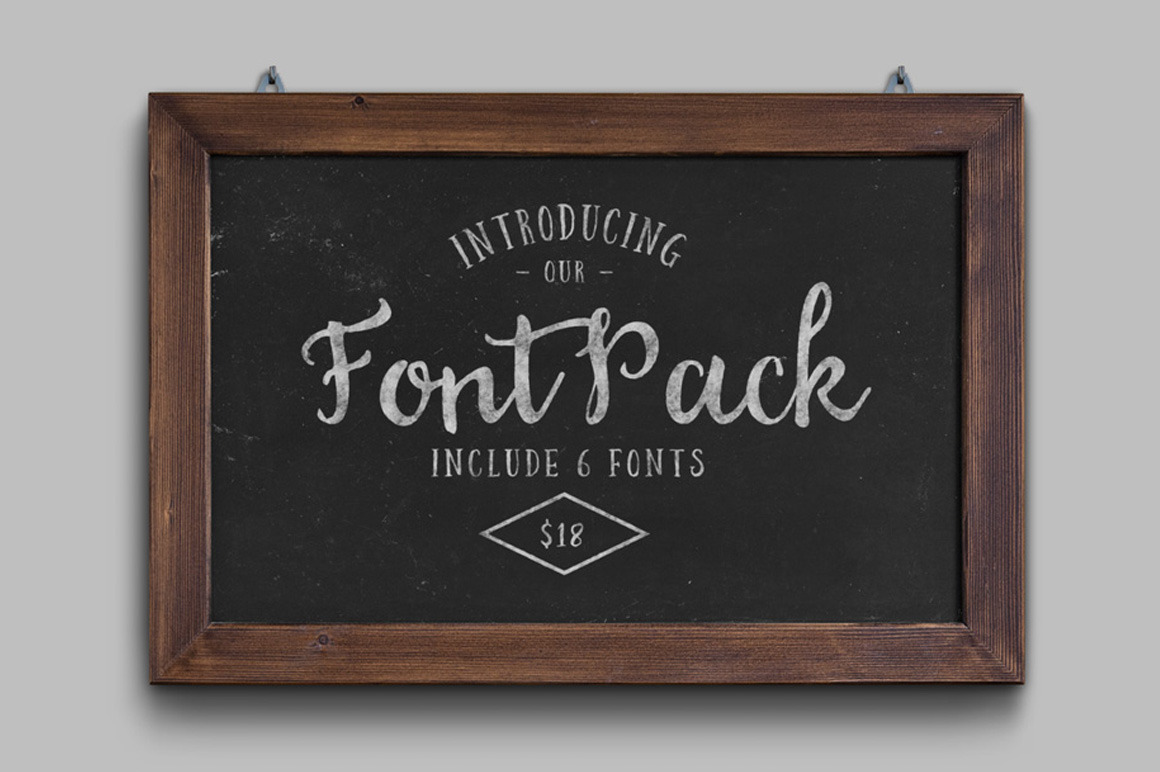
6 fonts for designer, only $2 can be used for various purposes; headings, signature, logos, wedding invitation, t-shirt, signage, lable, posters, badges, quotes etc.